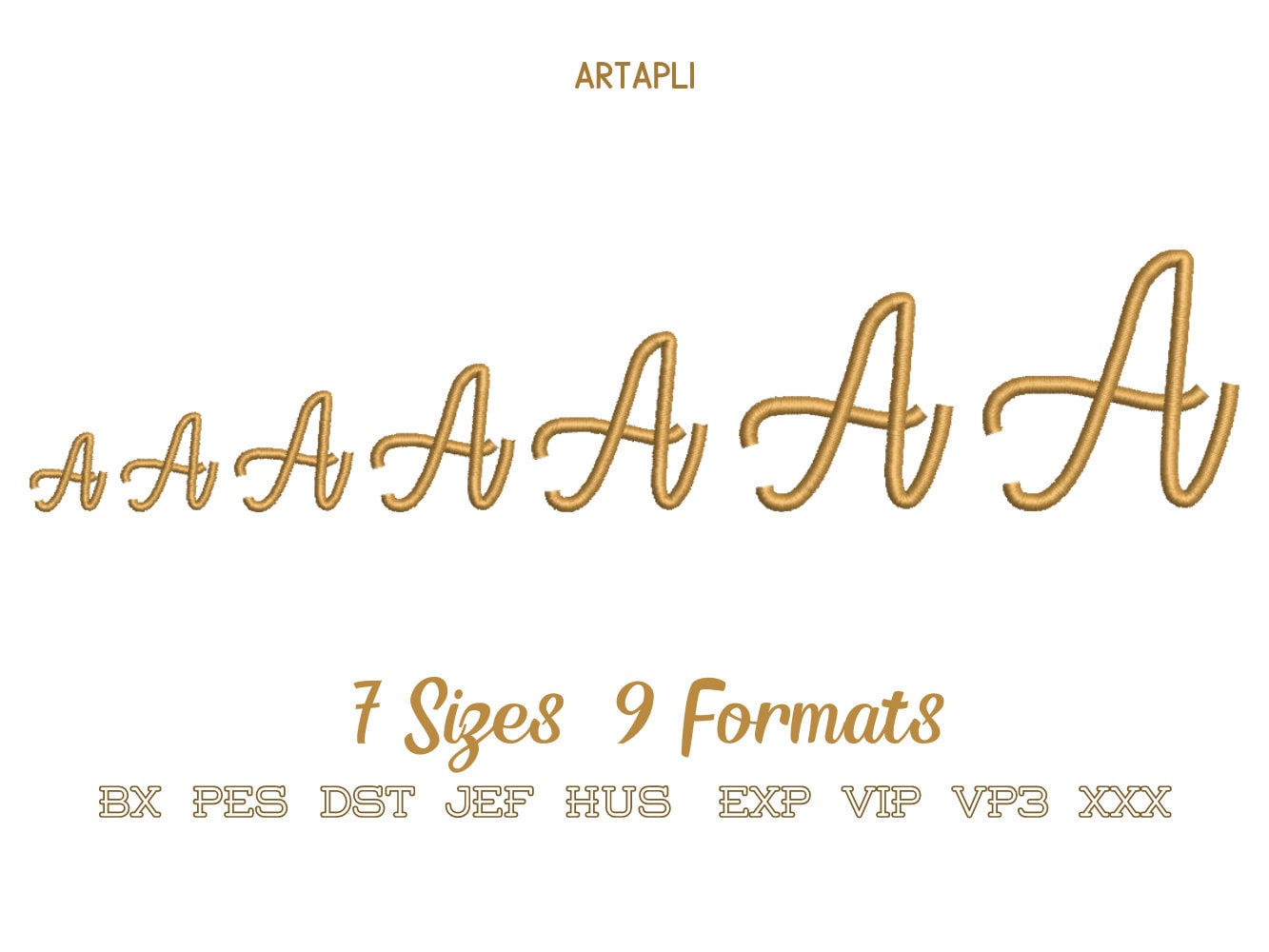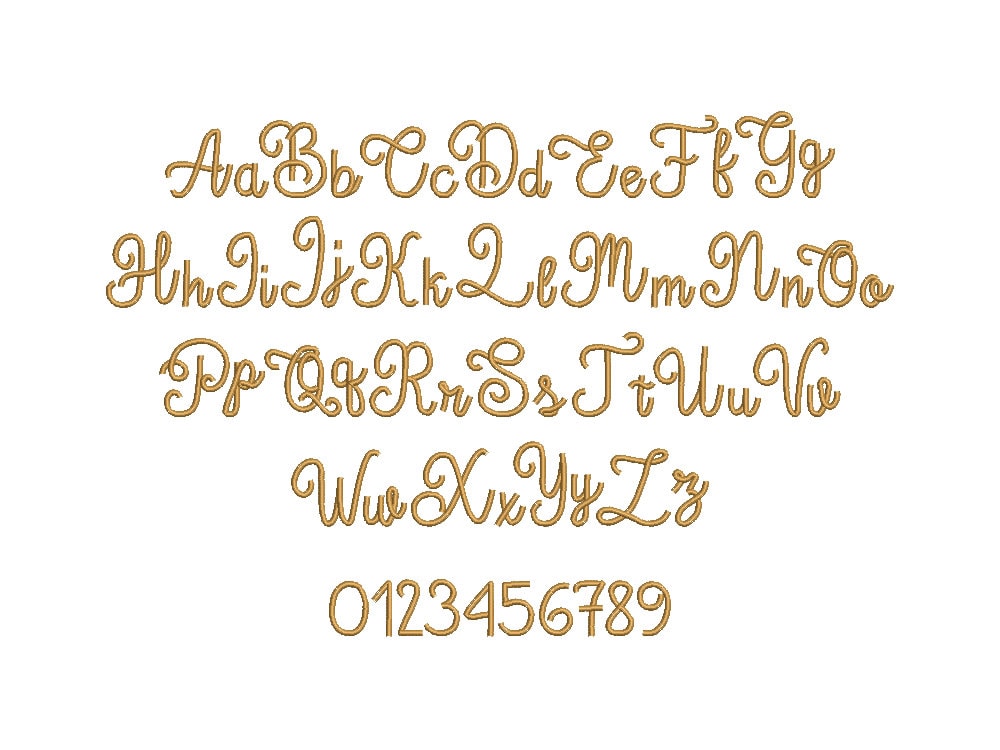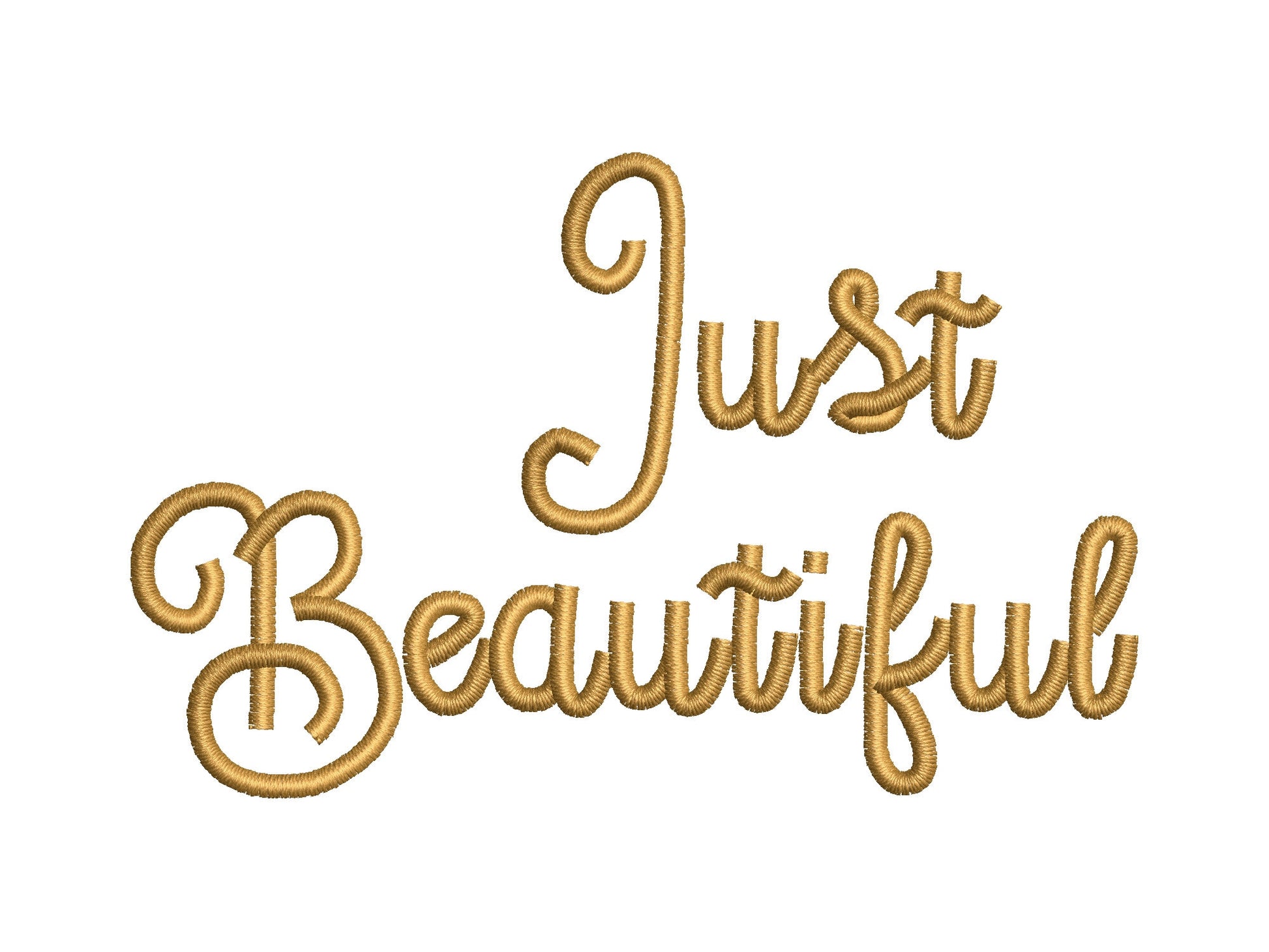
Beautiful Satin Stitch Handwritten Font
Uppercase and lowercase letters and numbers 0 to 9 in seven sizes: 0.7, 0.9, 1.1, 1.4, 1.7, 2 and 2.4 inches. Smooth satin stitch with a handwritten look.
- Satin stitch handwritten font
- Uppercase and lowercase letters, numbers 0-9
- 7 sizes, 0.7 to 2.4 in